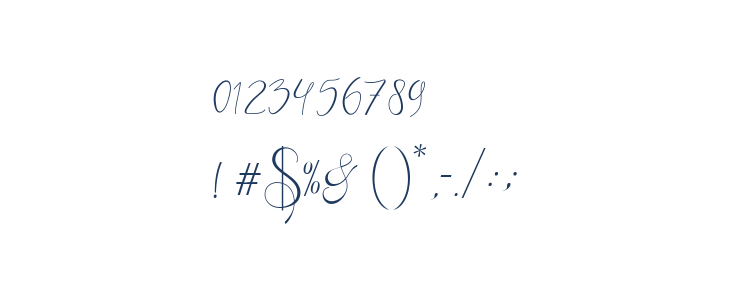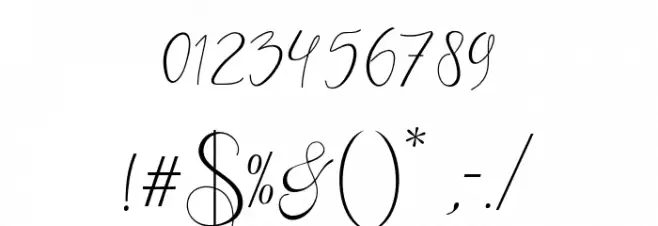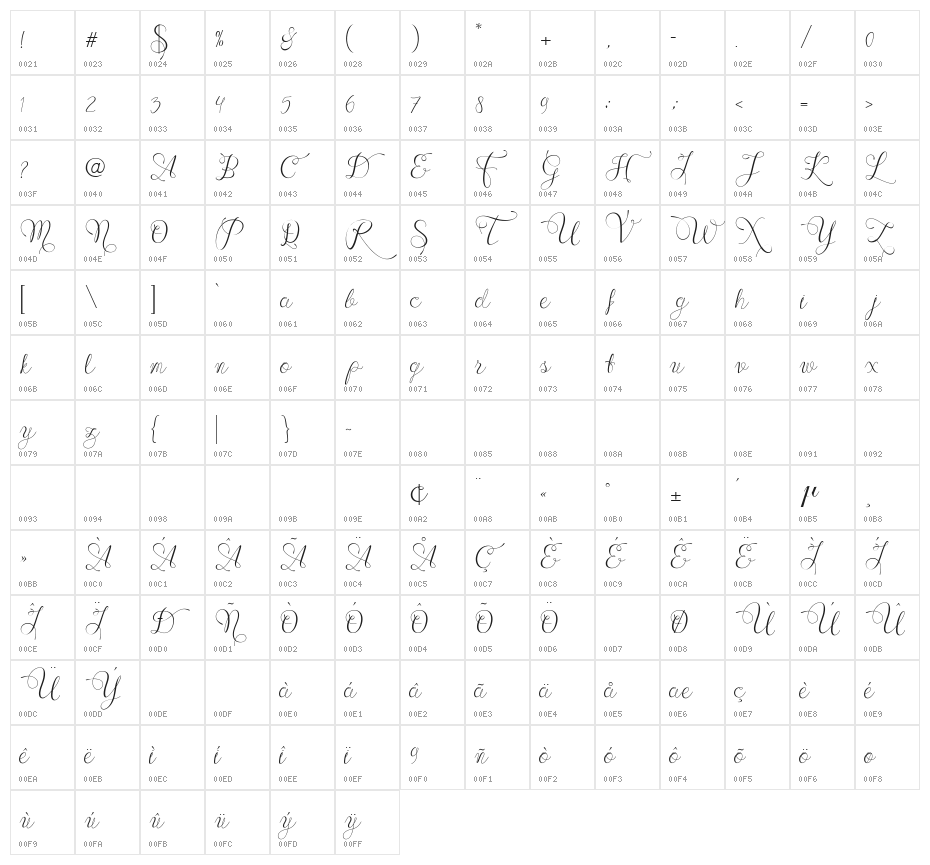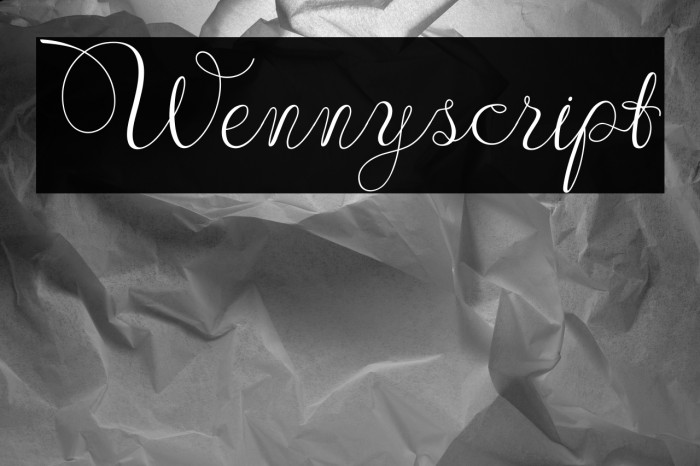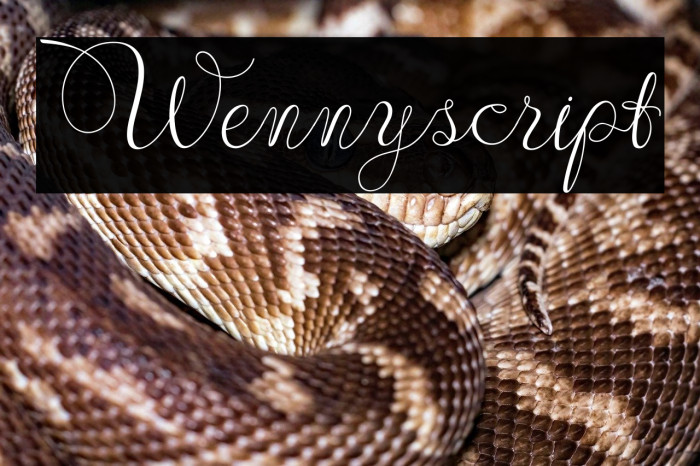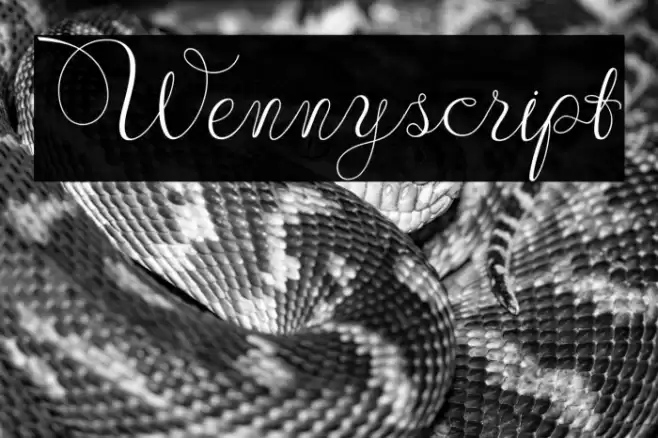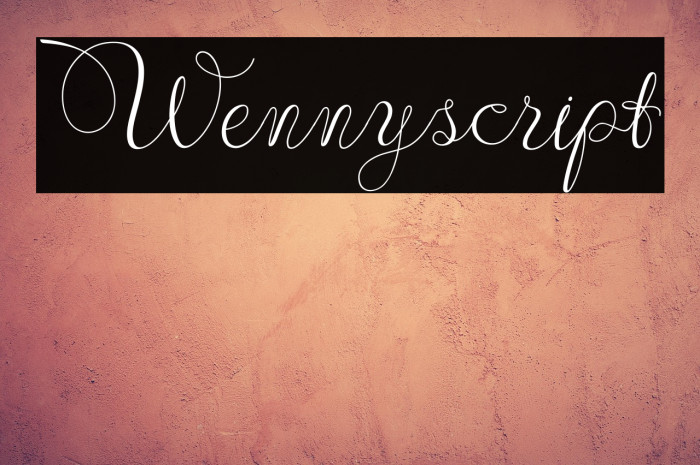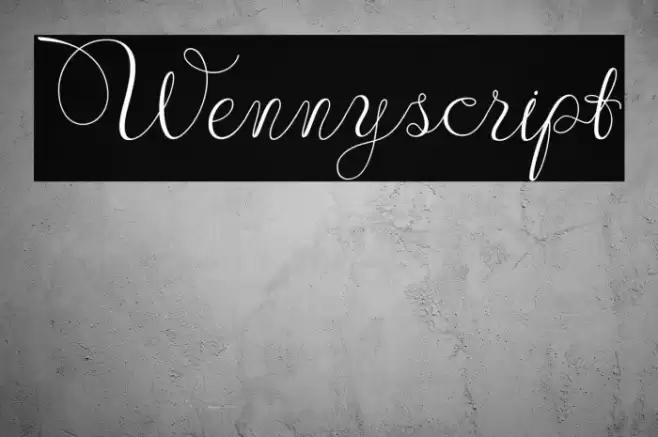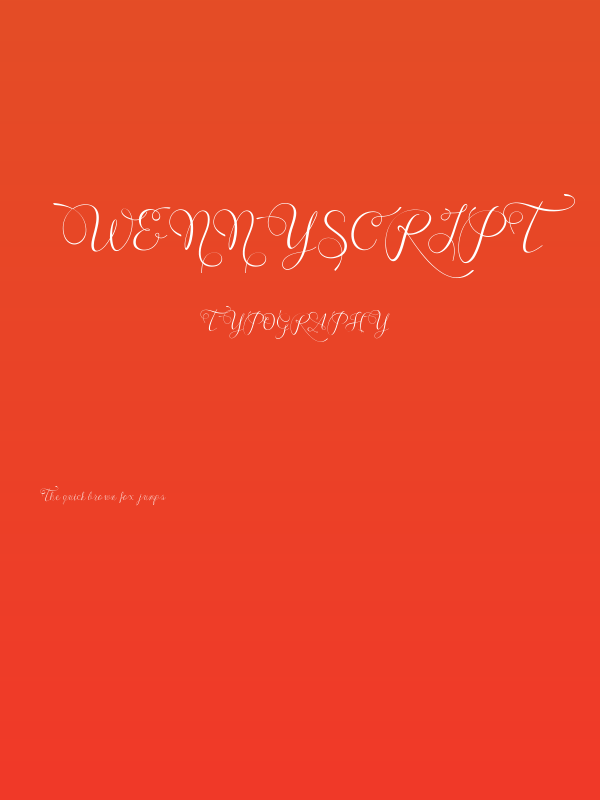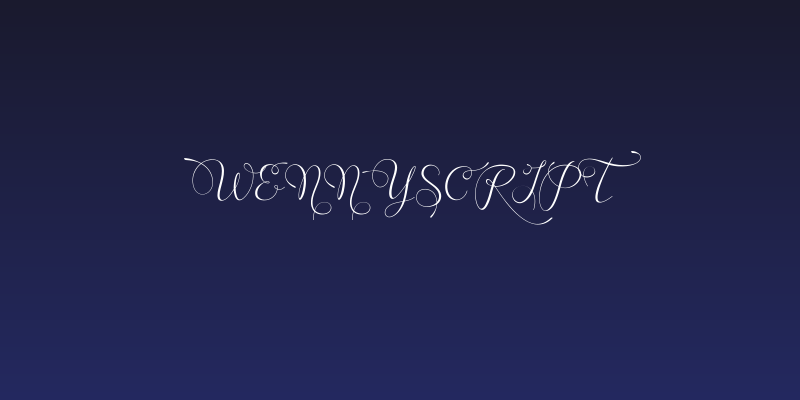
Wennyscript Font
Wennyscript Description
This font features an elegant and flowing script style, characterized by its intricate swirls and loops that give it a sophisticated and artistic appearance. The uppercase letters are particularly ornate, with elaborate flourishes that extend beyond the baseline and cap height, adding a touch of grandeur. The lowercase letters maintain a consistent flow, with smooth connections that enhance readability despite the decorative nature. The numerals and special characters are designed to match the overall aesthetic, ensuring a cohesive look across all text. This font is ideal for projects that require a touch of elegance and creativity.